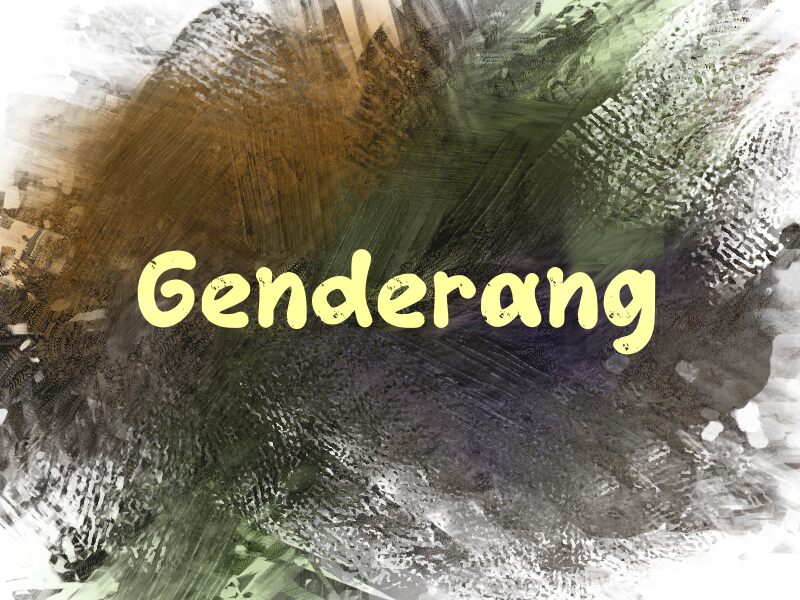
Genderang
Genderang font by wep is a bold brush font with irregular strokes, evoking a playful and casual mood. A natural-looking, dynamic typeface that feels authentic: handwritten and low contrast between strokes as well as textured and informal. Whether you’re using it for cartoon-related designs, art pages or anything else that needs a friendly, informal touch, Genderang will definitely be able to deliver such as you can see in the examples shown above!
This versatile font is perfect for branding material for food & beverage chains; posters & marketing messages - especially if they have an artistic feel about them! Also great incorporated into sportswear (like jerseys), on recipe cards + cookbooks etc...